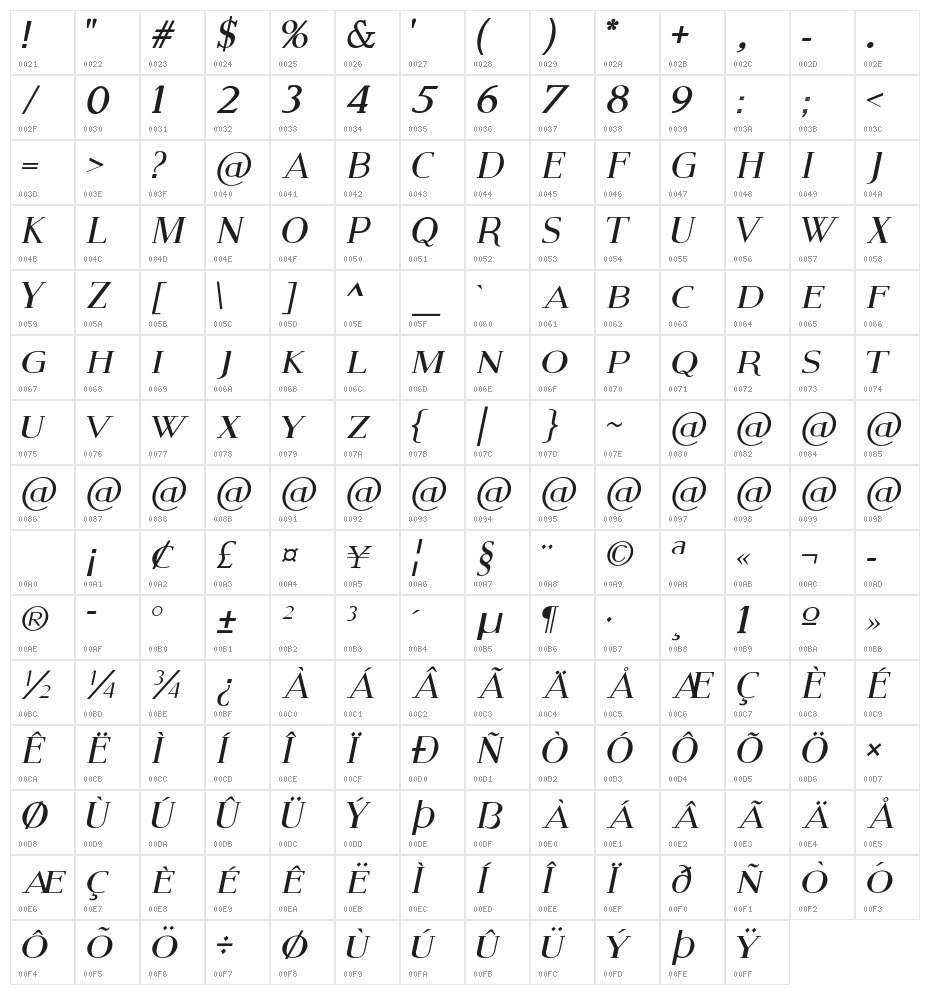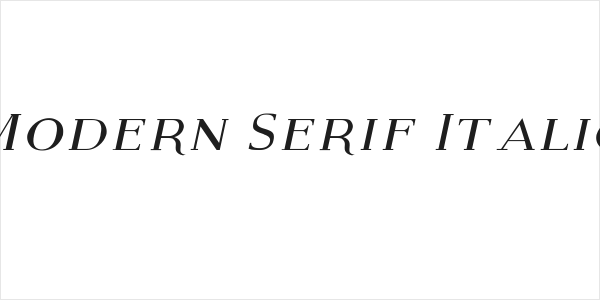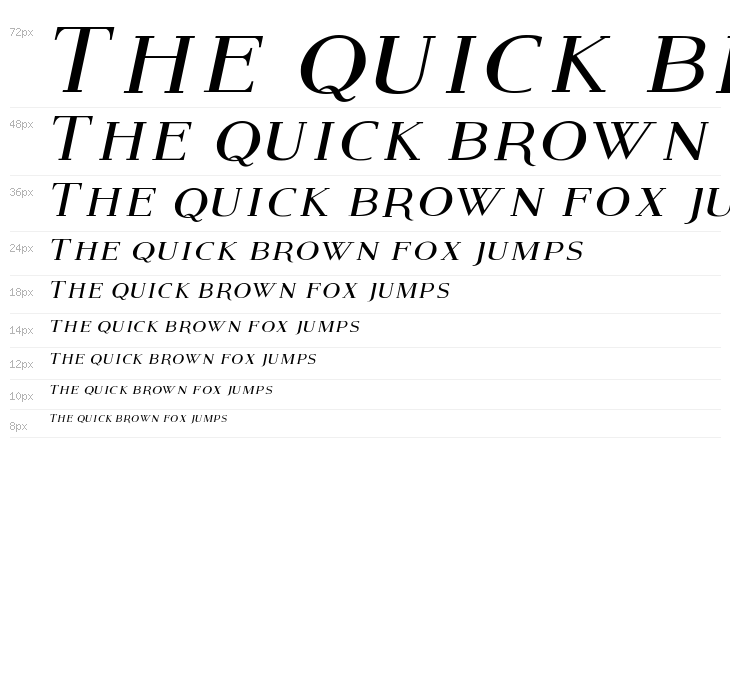
Modern Serif Italic Font
Modern Serif Italic Description
This elegant serif typeface features a refined italic style, characterized by its graceful curves and sophisticated appearance. The font exhibits a harmonious balance between thick and thin strokes, providing a medium contrast that enhances readability while maintaining a stylish flair. The serifs are delicately crafted, adding a touch of classic elegance to each character. The overall design is modern yet timeless, making it suitable for a variety of applications. The spacing between characters is normal, ensuring clarity and legibility across different sizes. This font is versatile, offering a polished look that can elevate any design project.